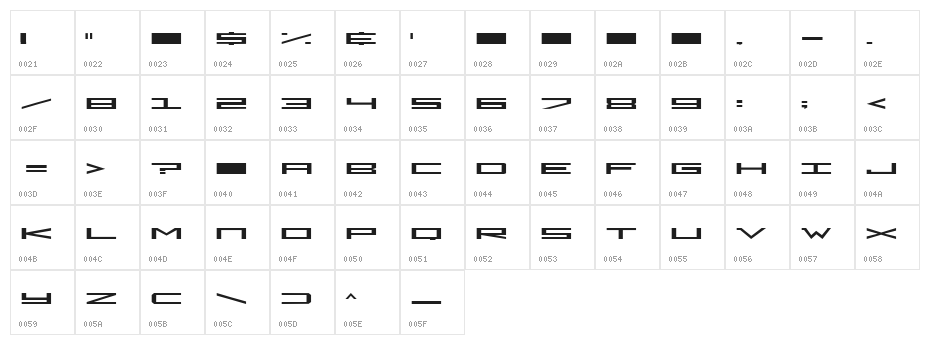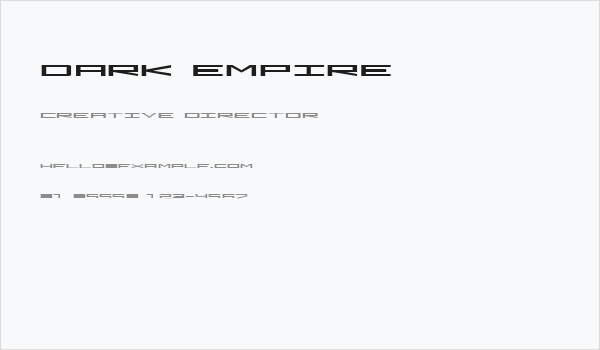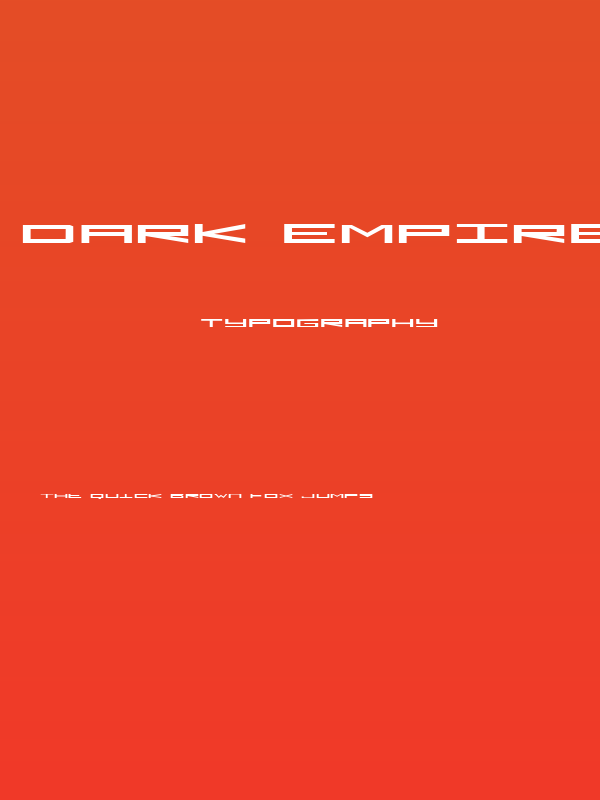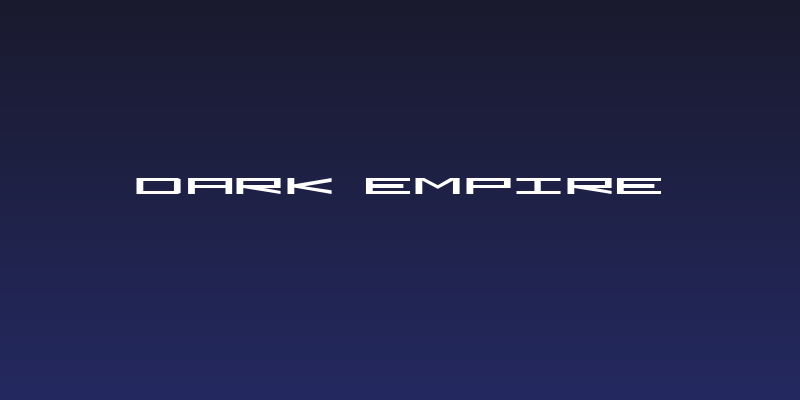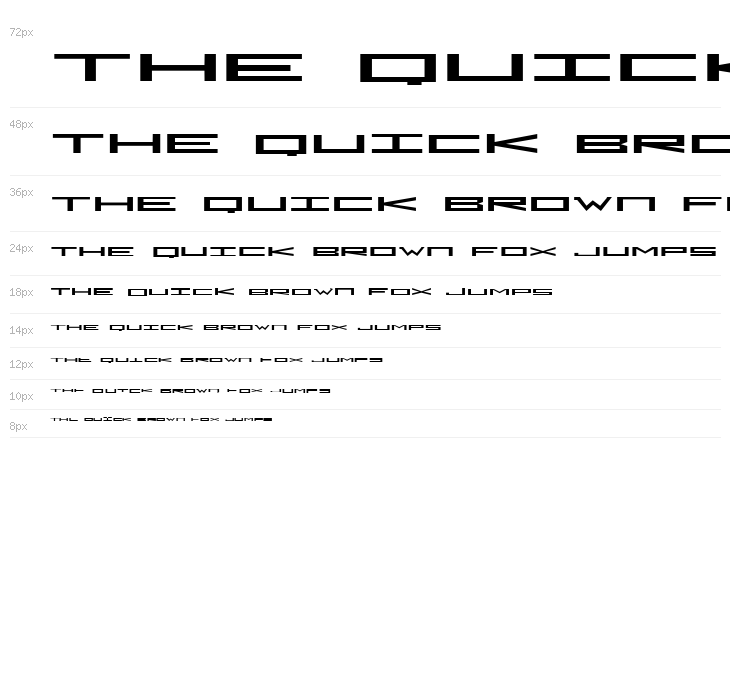
Dark Empire Font
Dark Empire Description
This font exhibits a futuristic and angular design, characterized by sharp edges and geometric shapes. The uppercase and lowercase letters maintain a consistent style, with a focus on horizontal and vertical lines that create a sense of precision and modernity. The numerals and special characters follow the same design principles, ensuring uniformity across all glyphs. The font's distinct appearance makes it suitable for projects that require a modern and tech-inspired aesthetic.
DARK-EMPIRE UPPERCASE
DARK-EMPIRE LOWERCASE
DARK-EMPIRE OTHER CHARS
| Proposed Projects | Ideal for sci-fi themed designs, tech branding, video game interfaces, and modern posters. |